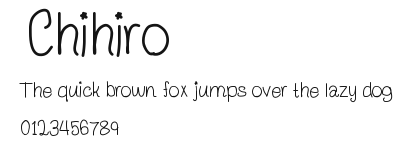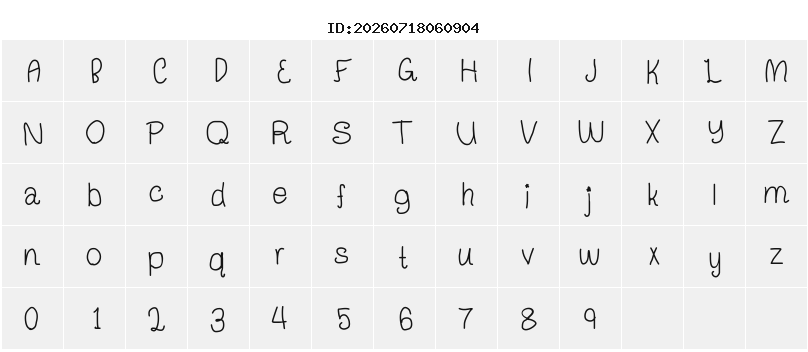
• Font Name: Chihiro
• Full Font Name: Chihiro
About Chihiro.ttf
Chihiro.ttf is a modern, elegant sans-serif font designed for ultimate readability and visual harmony. Perfect for branding, headlines, web design, and print materials.